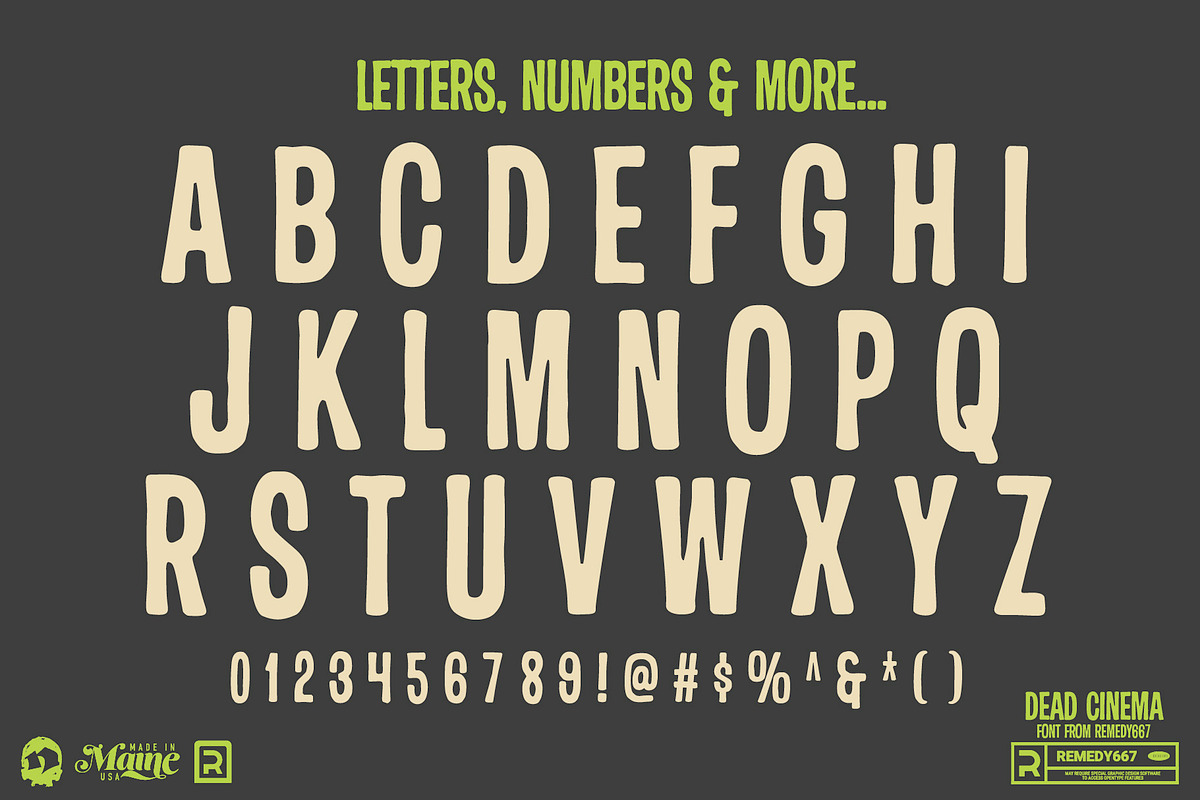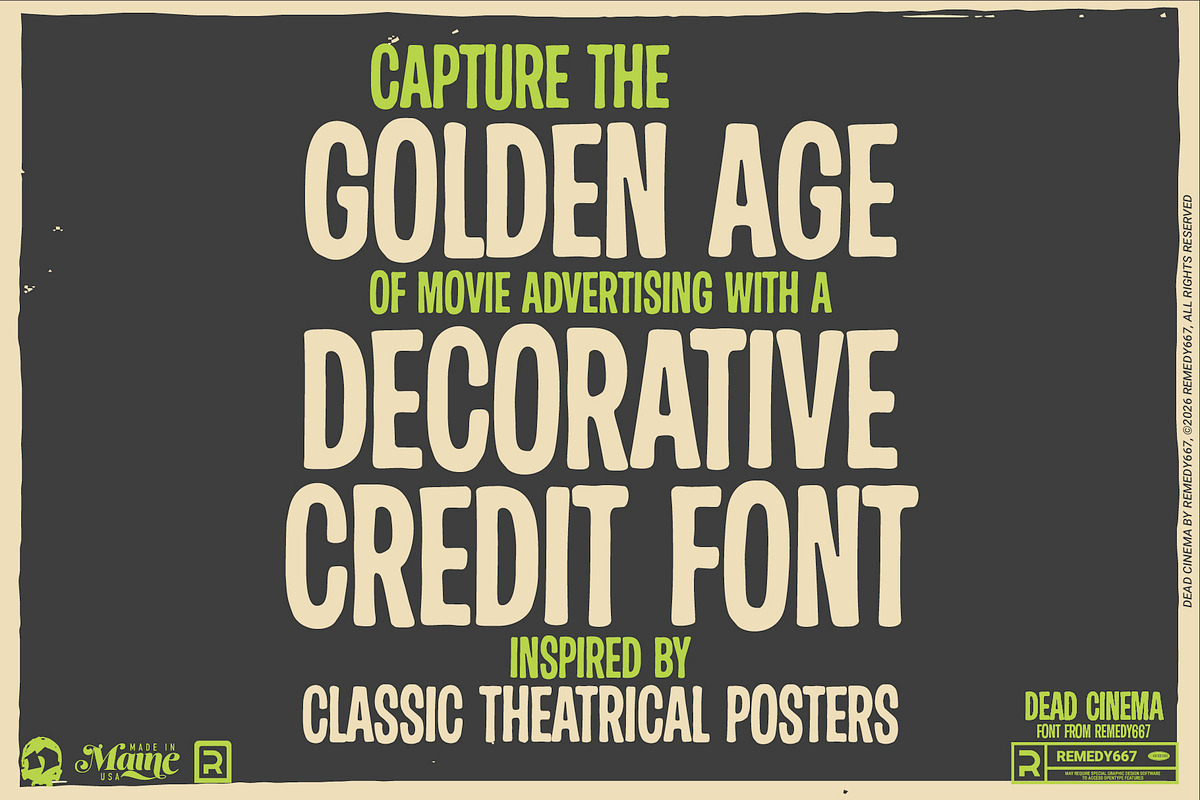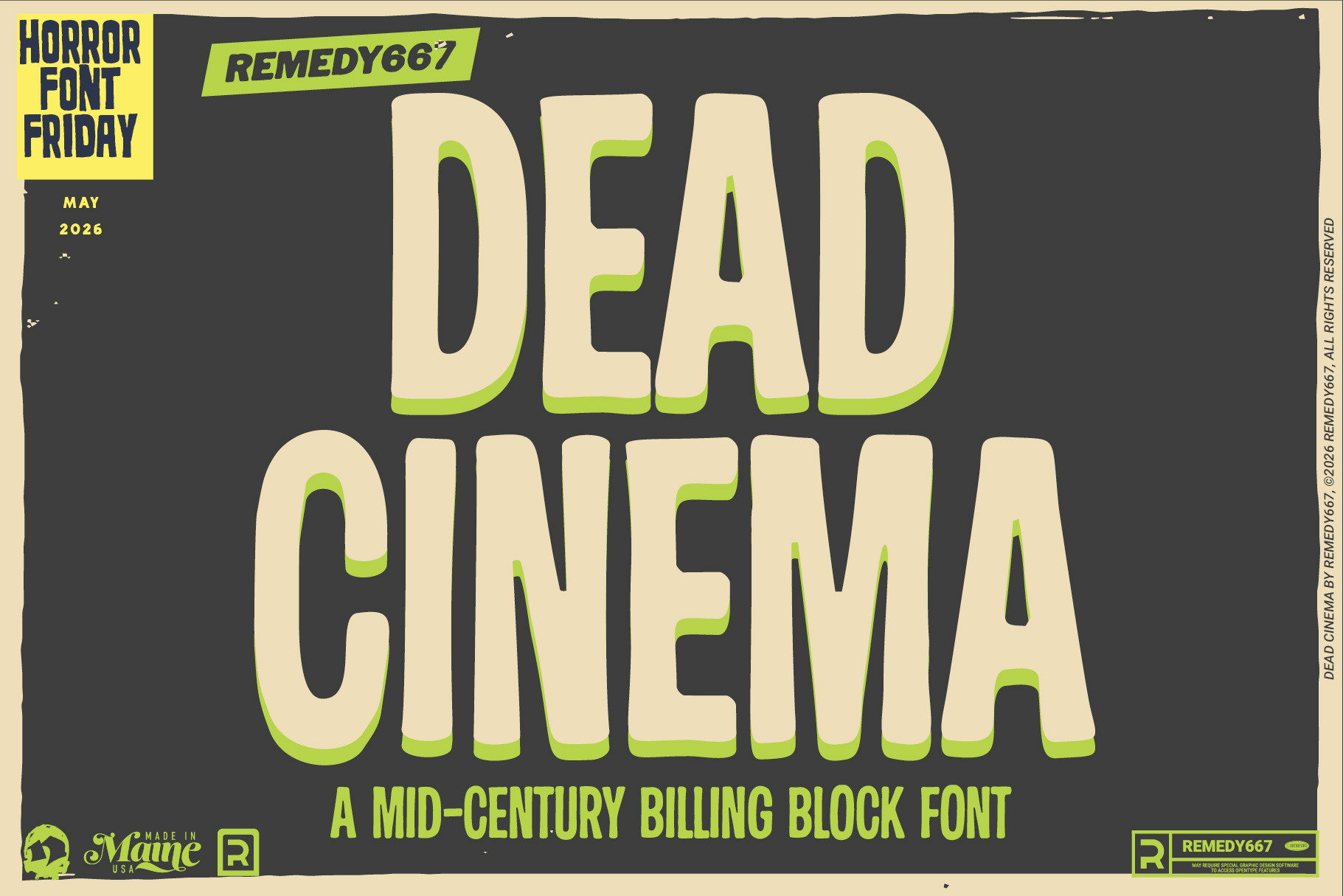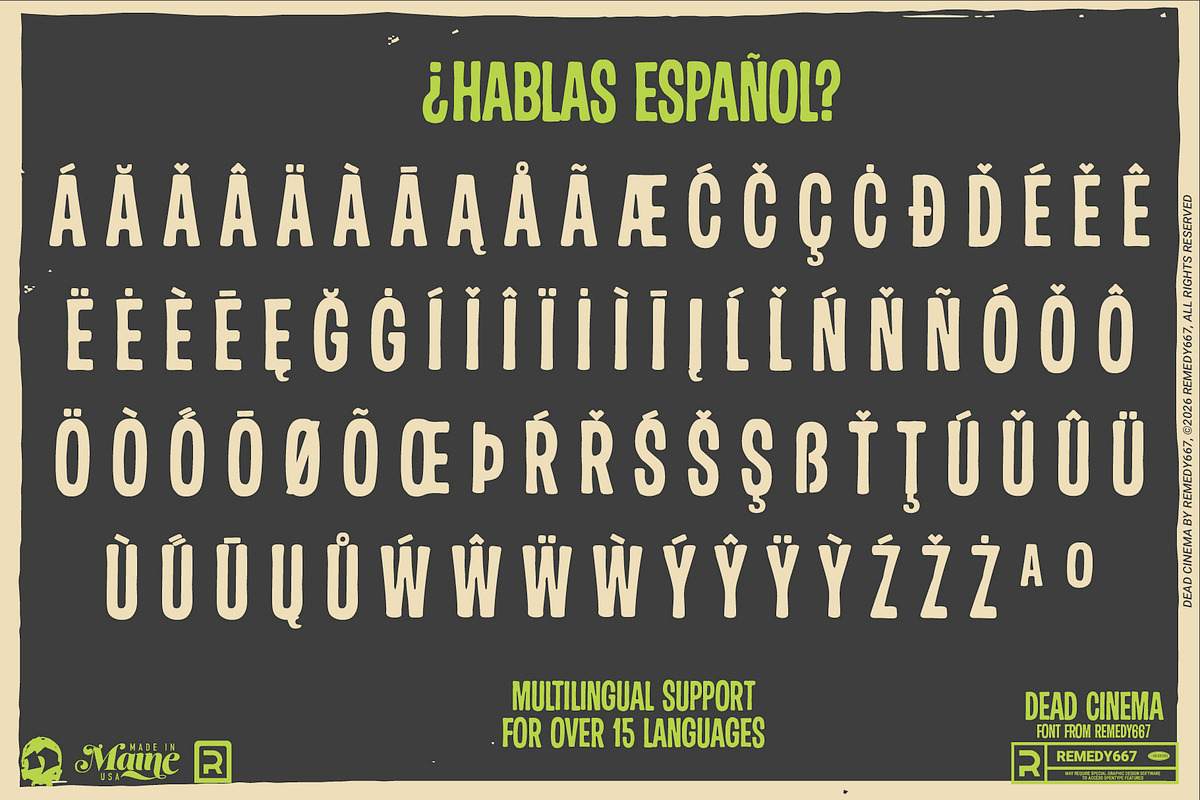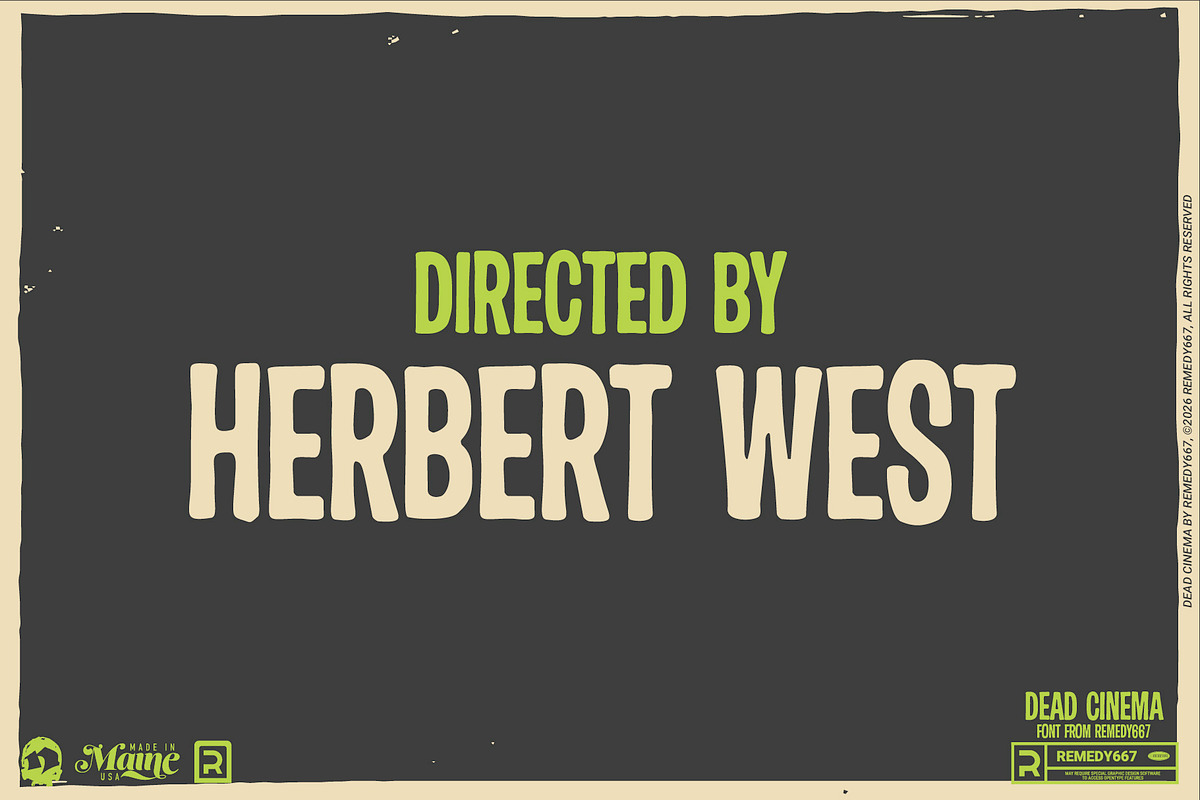
Dead Cinema - Movie Poster Font
Every horror masterpiece needs credits for the corpses! Dead Cinema brings back the forgotten art of mid-century billing blocks. Inspired by the iconic lettering found on 1950s and 60s movie posters, Dead Cinema captures the authentic rhythm of vintage film advertising.
Built for the details that make a poster feel real, Dead Cinema is perfect for credits, festival lineups, subheadings, and packed informational layouts. Tight, readable, and full of cinematic nostalgia, Dead Cinema gives your projects that authentic silver-screen finish.
Inspired by authentic 1950s and 60s movie poster credits
Perfect for credits, festival lineups, and subheadings
Designed for compact readability in dense text layouts
Full character set with multilingual support